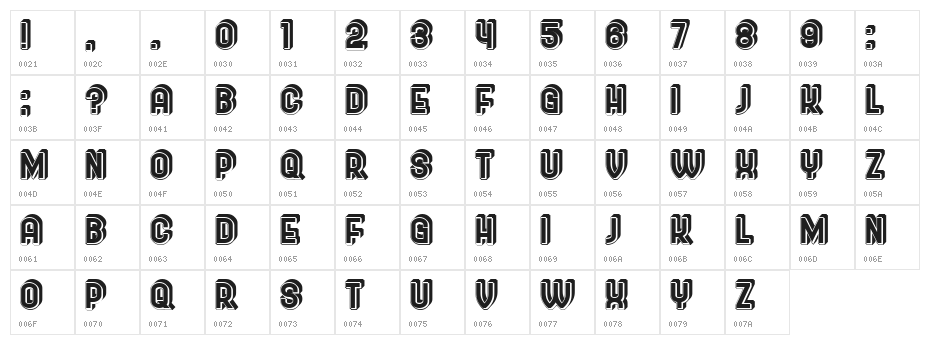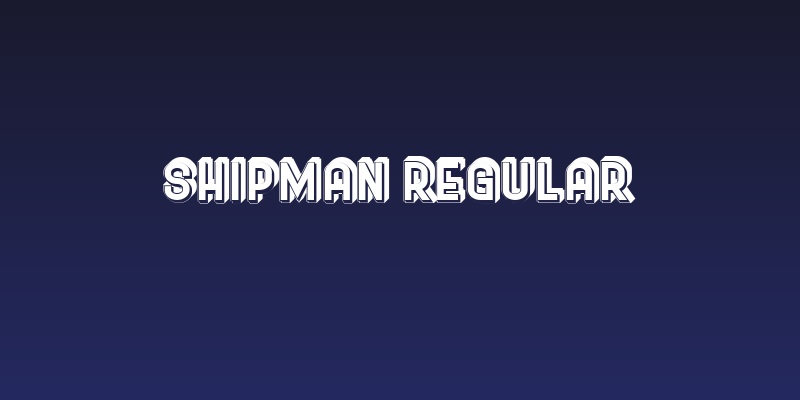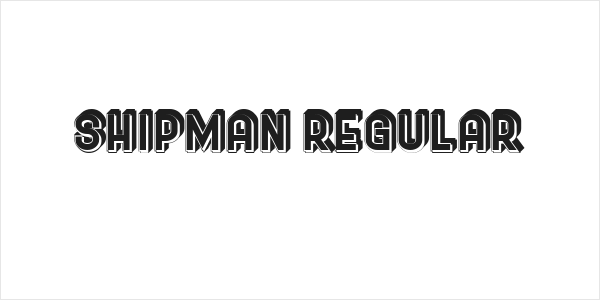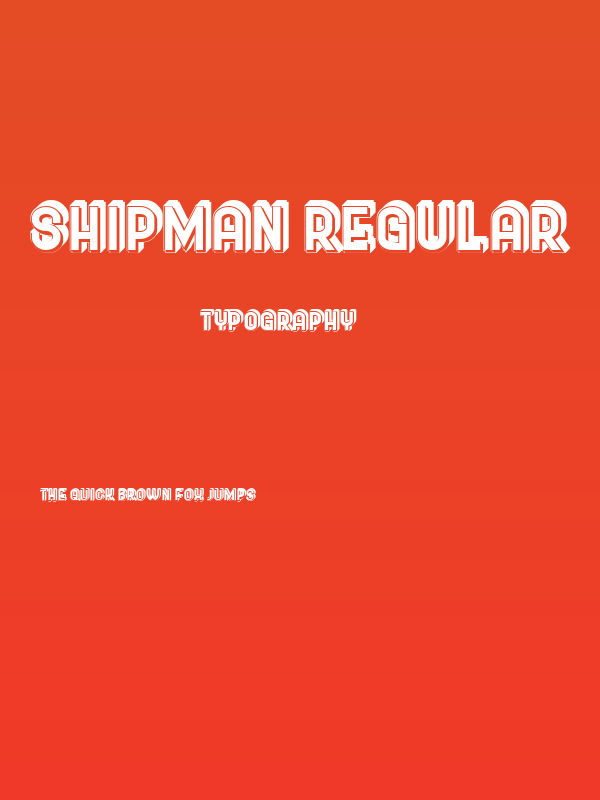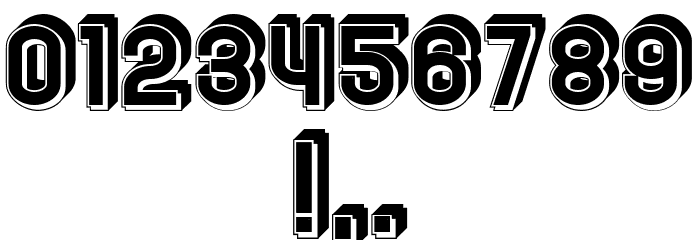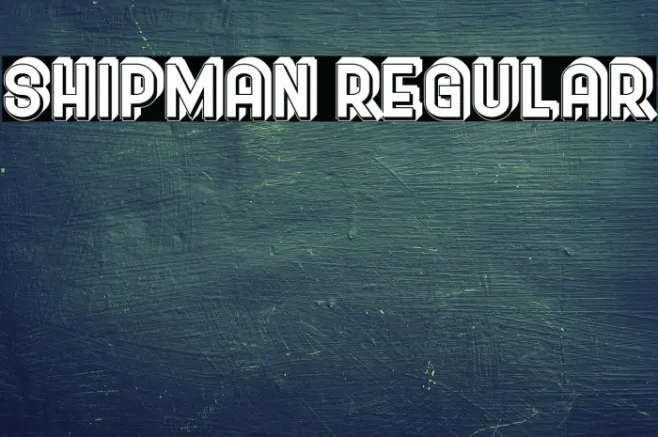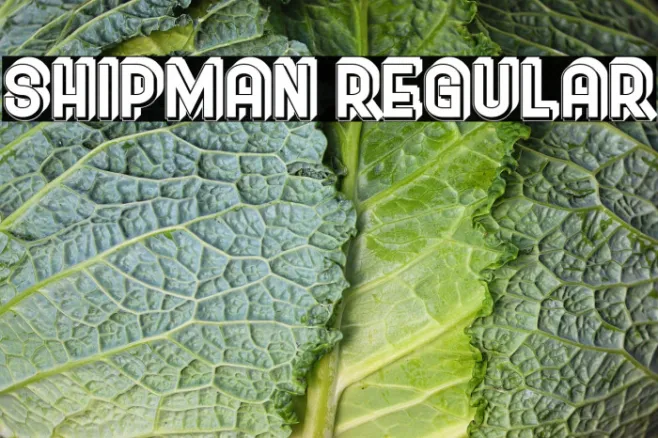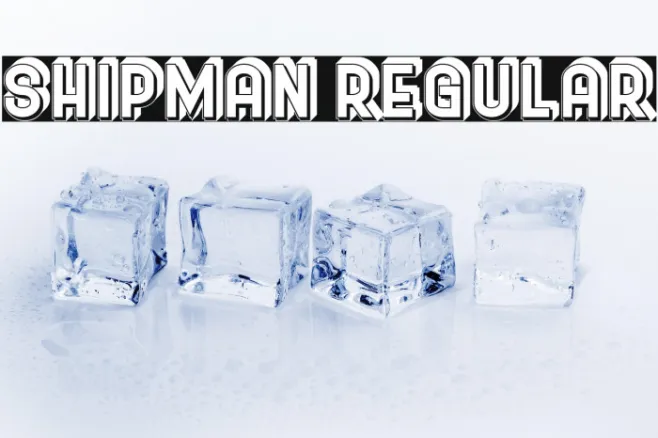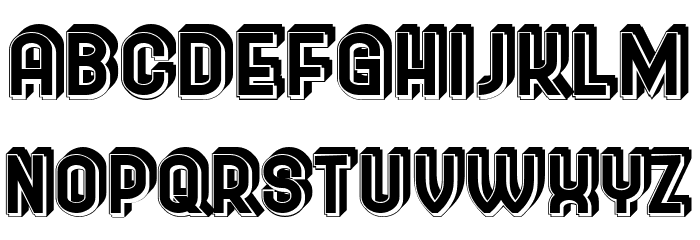
Shipman Regular Font
Shipman Regular Description
This font features a bold, decorative style with a three-dimensional effect created by a shadow outline. The characters are uppercase and have a strong, impactful presence, making them ideal for attention-grabbing designs. The font's geometric shapes are consistent throughout, with rounded edges that soften the overall look. The numbers and special characters maintain the same bold and shadowed characteristics, ensuring uniformity across all glyphs. This font is particularly suited for projects that require a standout display typeface.
| Proposed Projects | Ideal for posters, headlines, logos, and branding materials that require a striking and memorable typeface. |